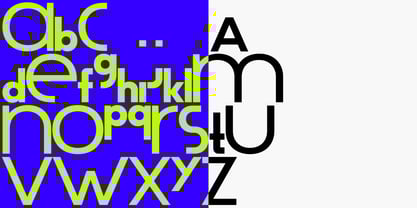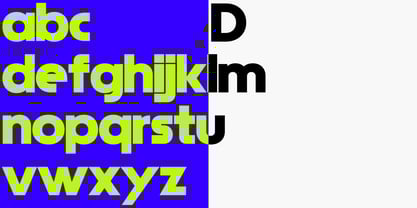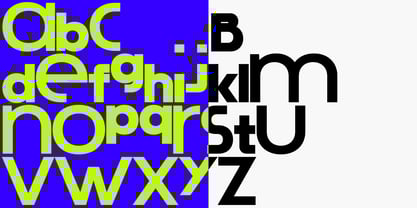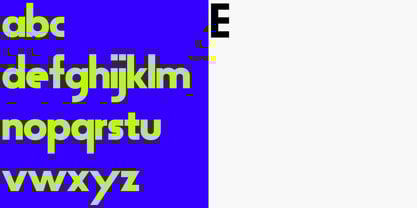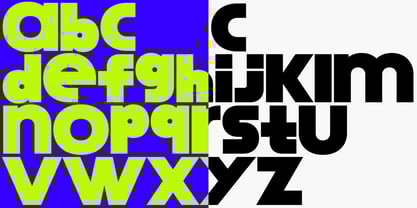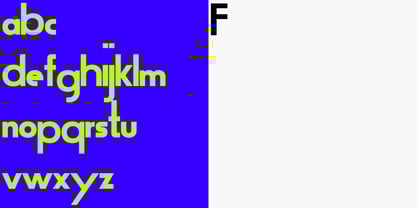
Politip
by bb-bureau
The Politip Font Family was designed by Benoît Bodhuin and published by bb-bureau. Politip contains 42 styles and family package options.
Politip is polytypes!
A simple and geometric typeface designed on 6 different grids (A, B, C, D, E and F) so as to play with the weightlessness of typography: vertical proportions (eye of type). These 6 drawings the vertical proportions = the ratio between x-height and height of caps. This game creates new rules and new relationships between letters.
A very versatile type.
— Weight: from Thin to Heavy
— Height: from A to F